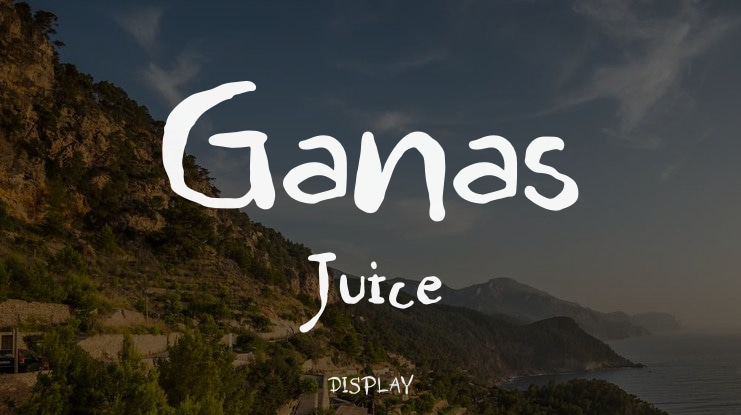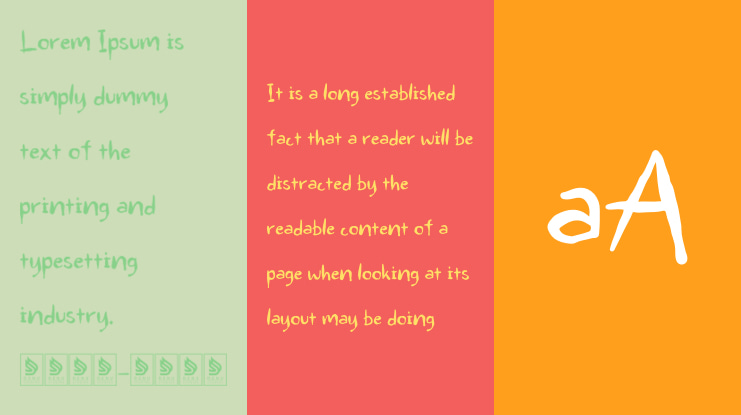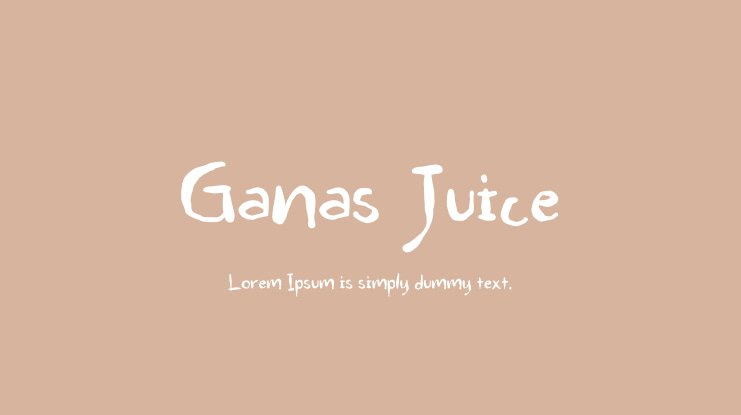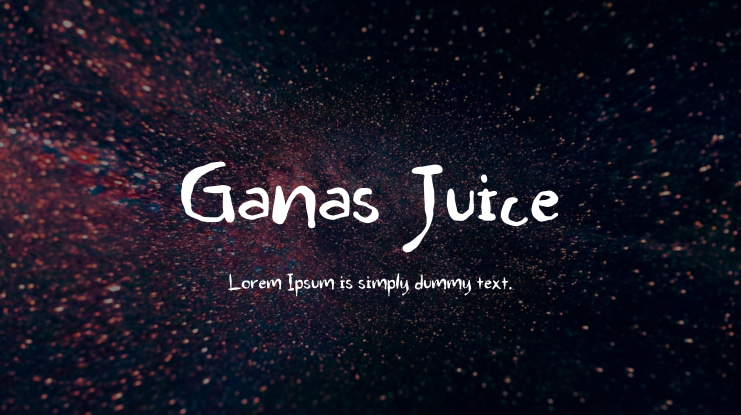
Ganas Juice | Doodly Display Font is perfect for a variety of projects including logos, branding, homeware designs, product packaging, quotes, posters, clothing, book covers, business cards, invitations, photography, watermarks, special events, and any other projects that could benefit from a Doodly Display style.